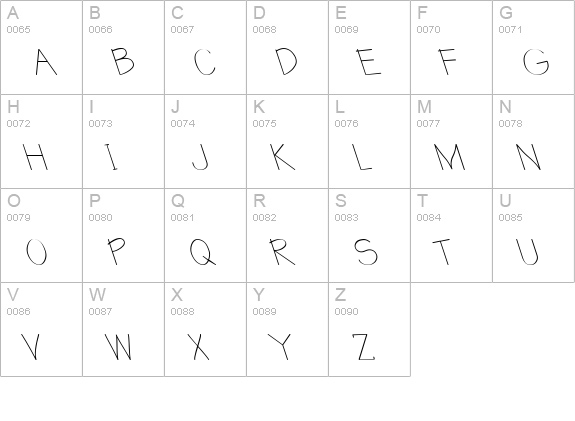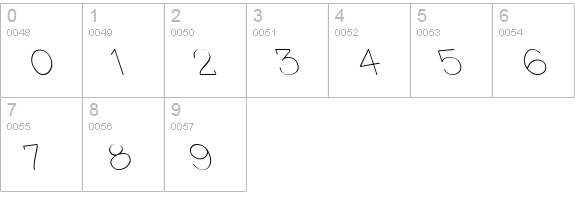
Architect Lefty Font Details
Architect Lefty font is a modern and sleek typeface that exudes sophistication and elegance. Its clean lines and contemporary design make it perfect for a wide range of projects, from branding to editorial design. The unique left-leaning slant of the letters adds a touch of creativity and individuality to any text. What sets Architect Lefty font apart is not only its striking aesthetic but also its accessibility - it is available for free download at FontsMarket.com. This means that designers, creatives, and typography enthusiasts alike can easily access this stunning font without any cost. Whether you're designing a website, creating a poster, or working on a logo, Architect Lefty font is sure to make a statement and elevate your work to the next level. Don't miss out on this fantastic opportunity to enhance your design projects with the stylish and versatile Architect Lefty font, available for free at FontsMarket.com.